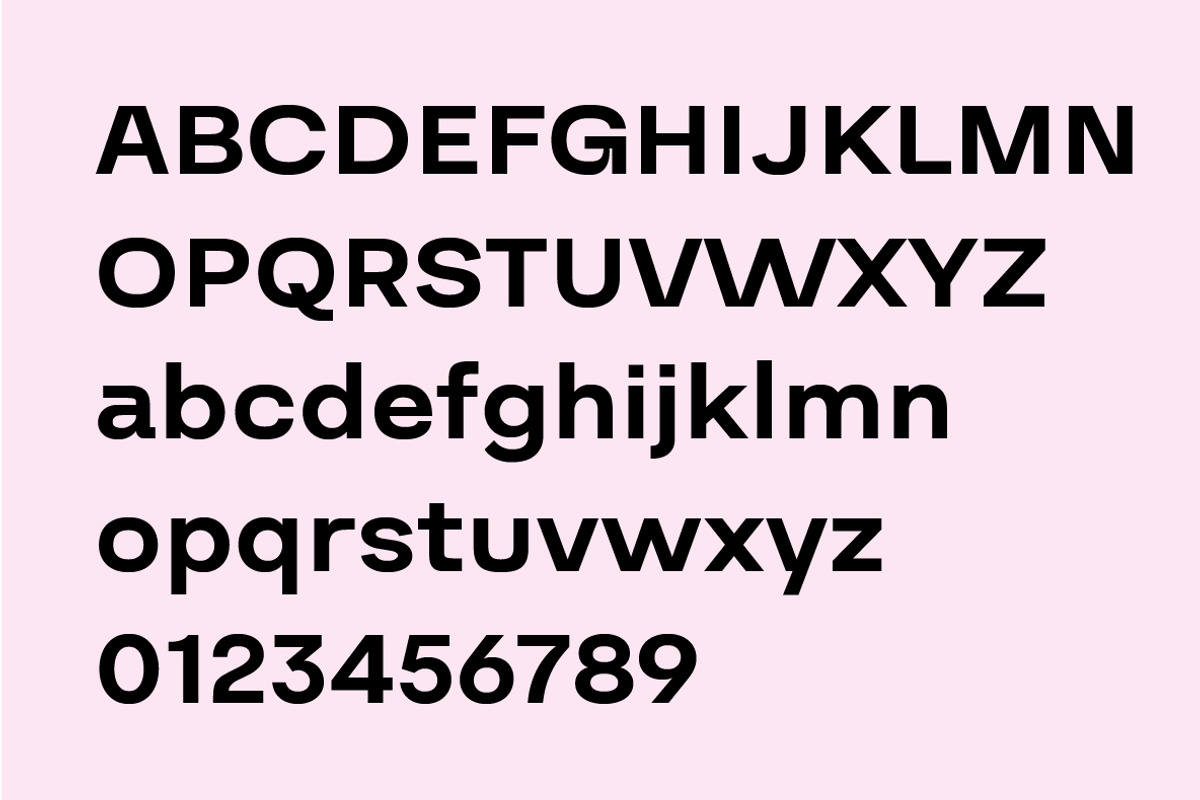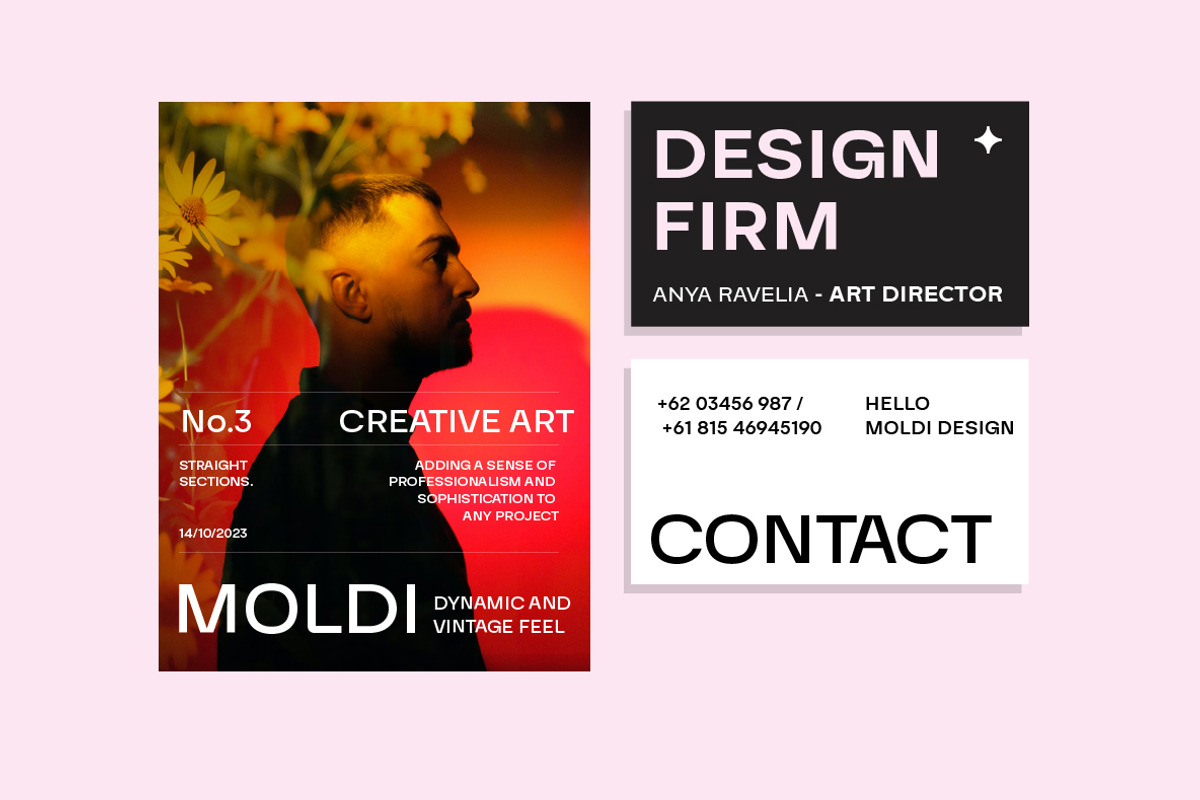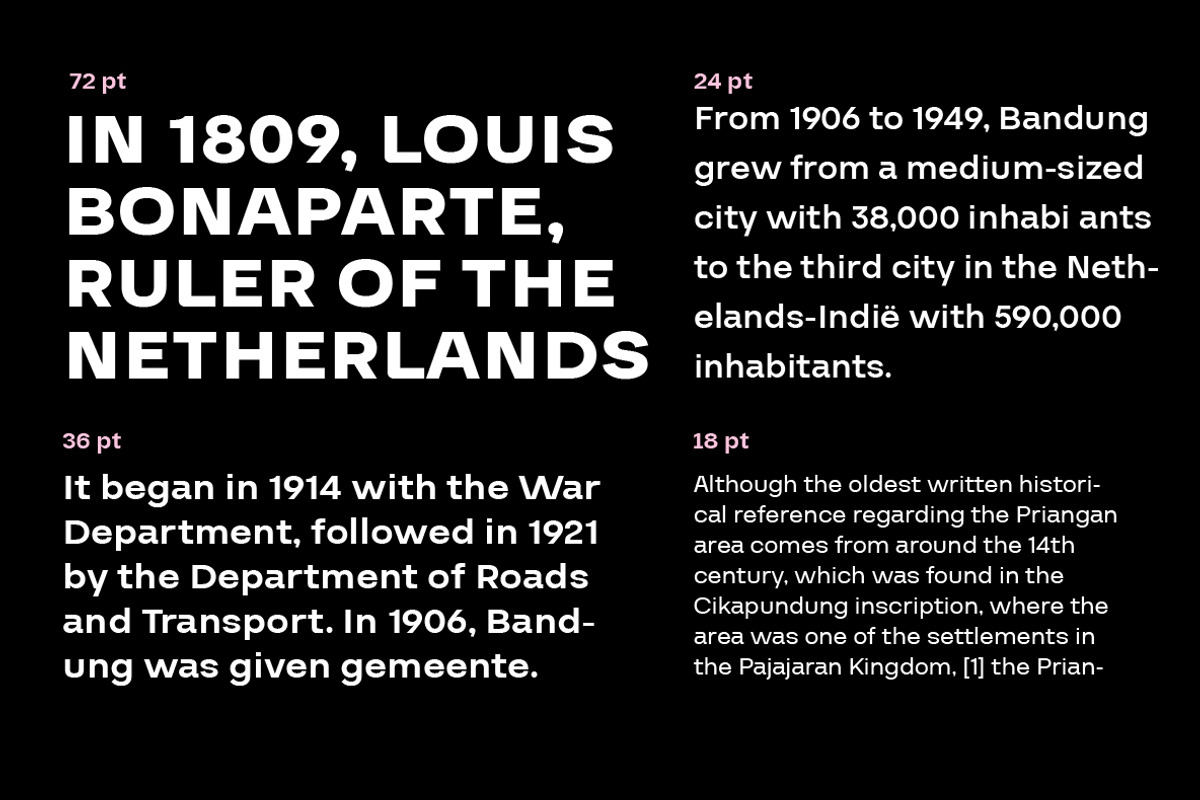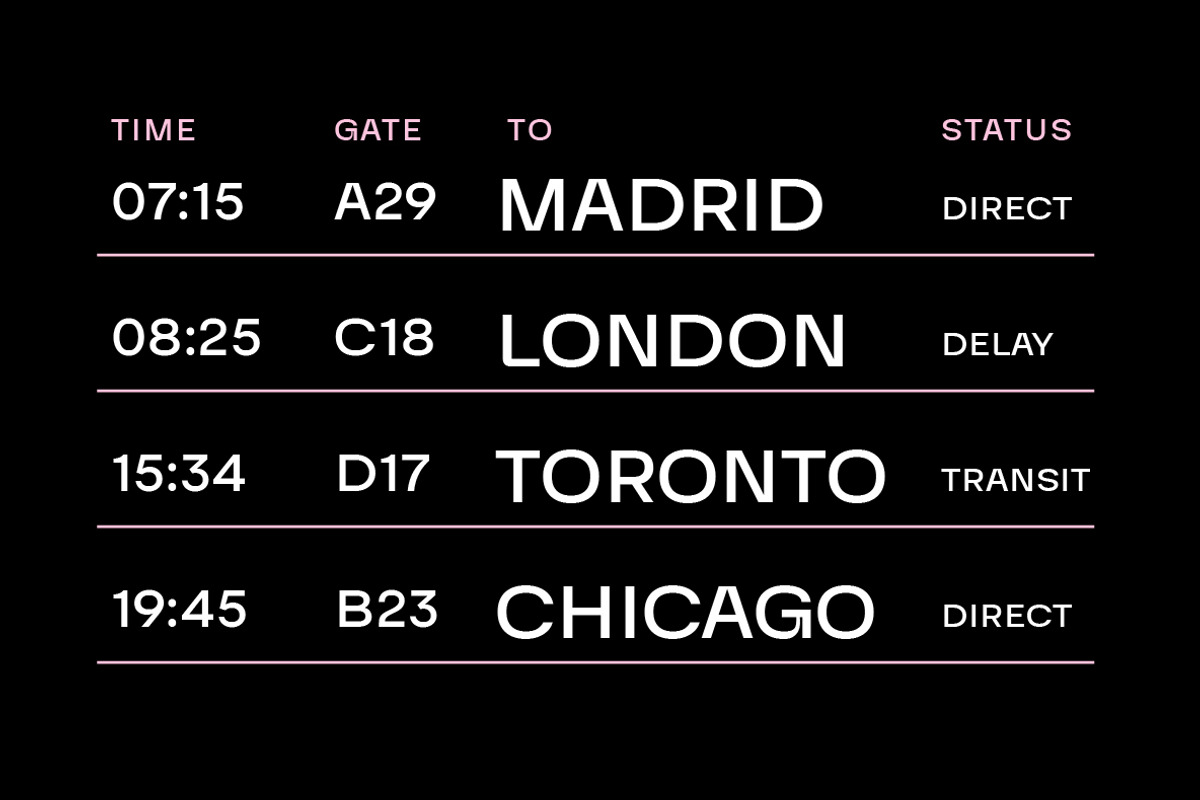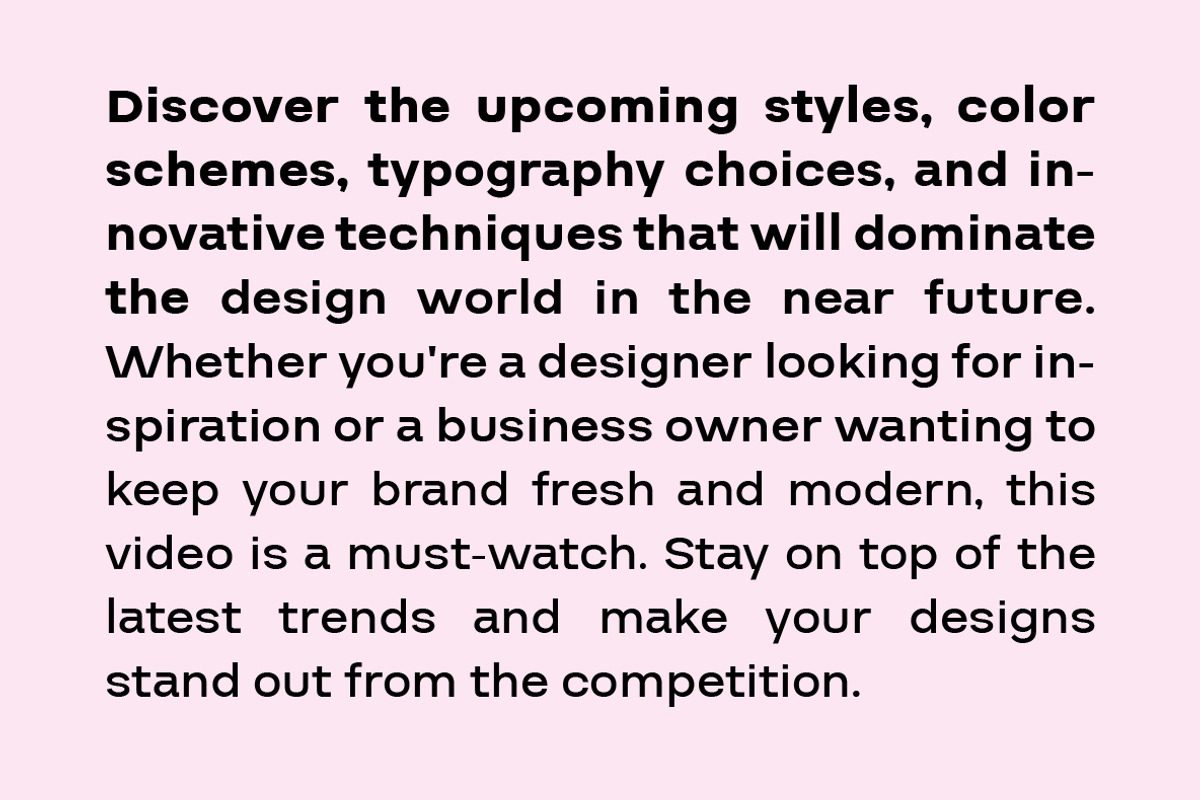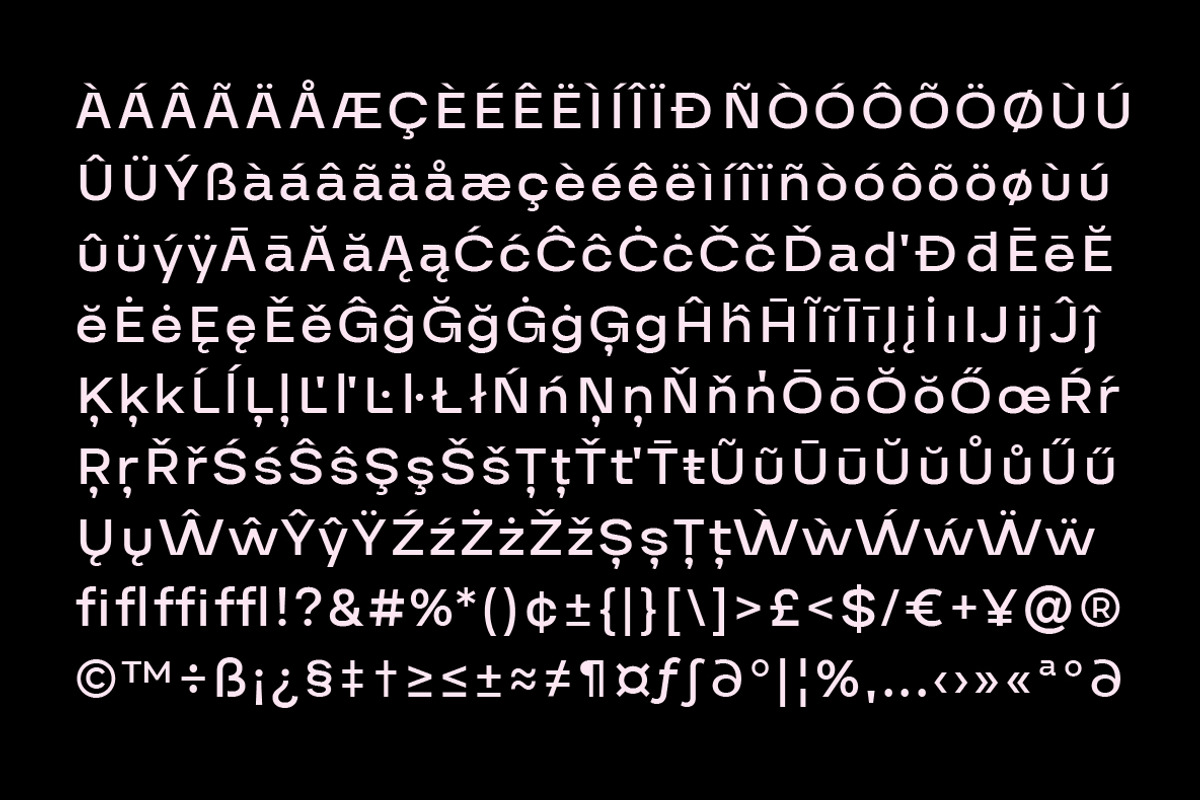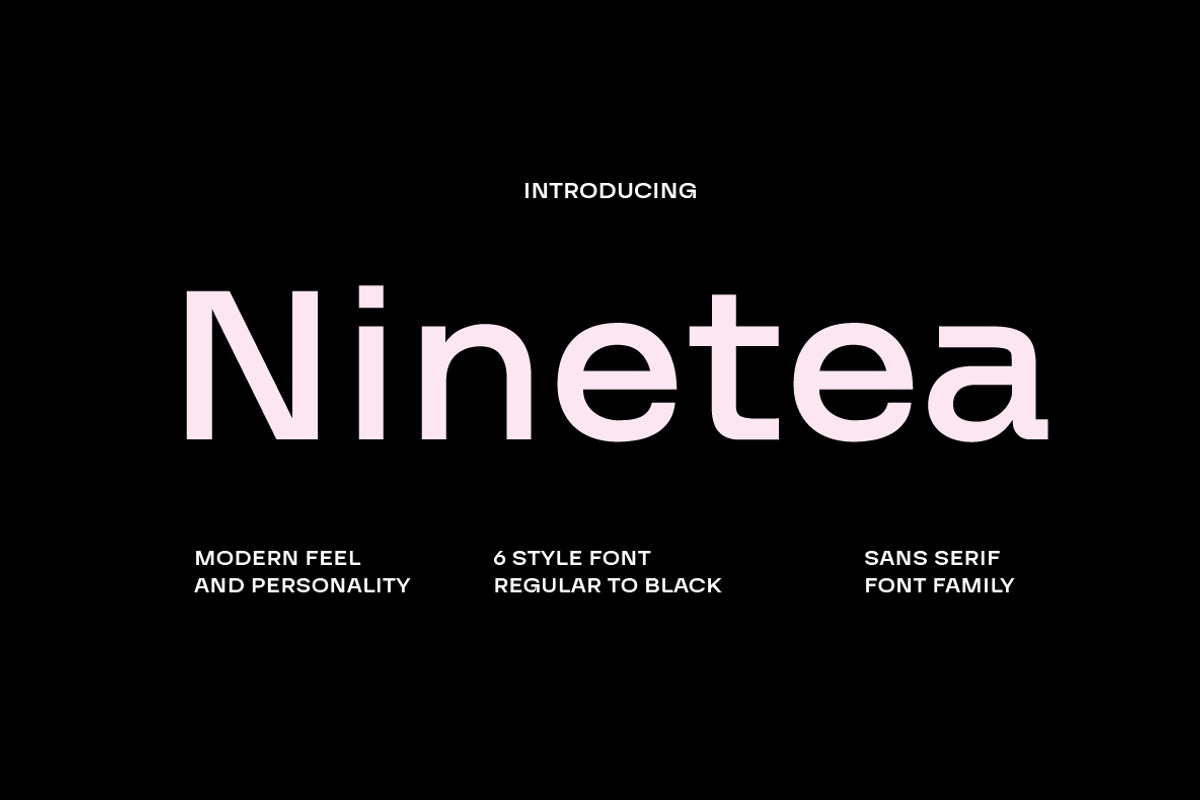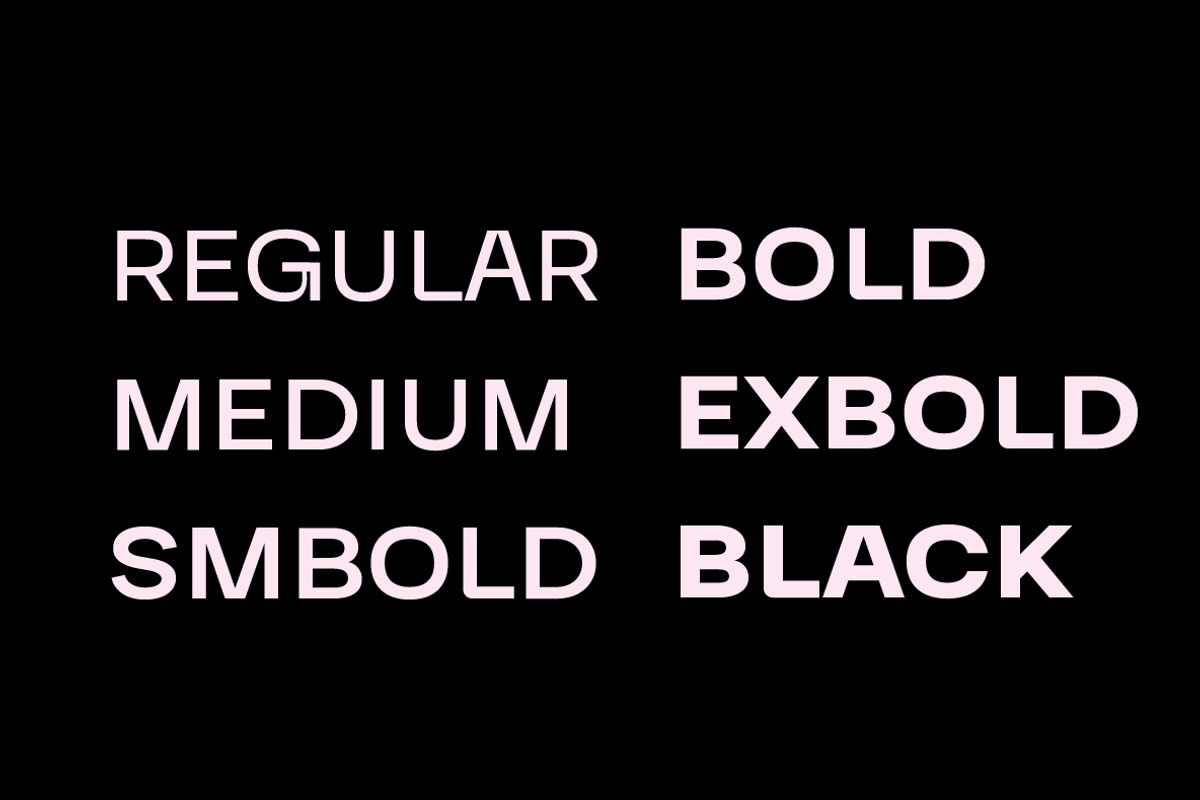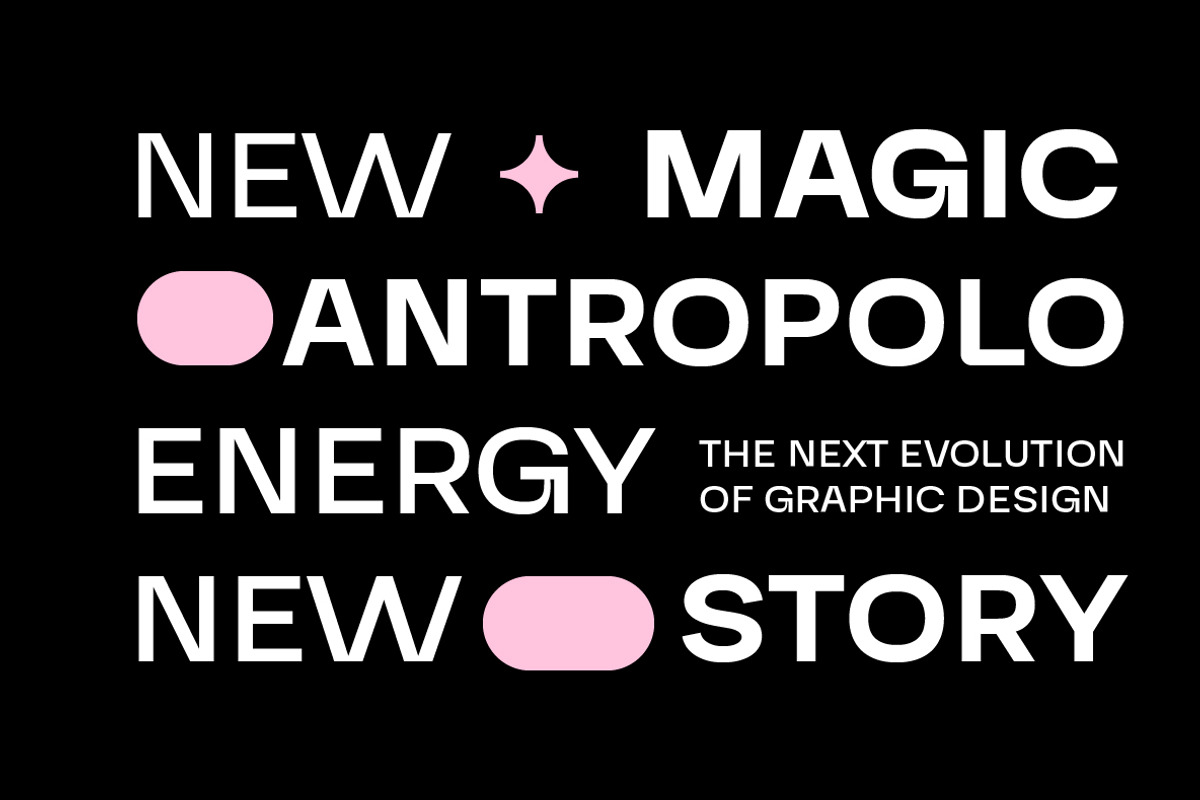
Ninetea Sans Serif Font
Ninetea Sans Serif font family is a typeface without serifs that is suitable for modern, minimalist and professional designs. This font has clear and firm characteristics but still gives an elegant and stylish impression
The Ninetea Sans Serif font family has a clean and easy-to-read appearance, making it very suitable for use in various media such as websites, posters, brochures, and so on. With a simple but still attractive style, this font will add value to your design.
The Ninetea Sans Serif font family consists of various variants such as Regular, Medium, SemiBold, Bold, ExtraBold, and Black, all of which have similarities in their bold and elegant characteristics.